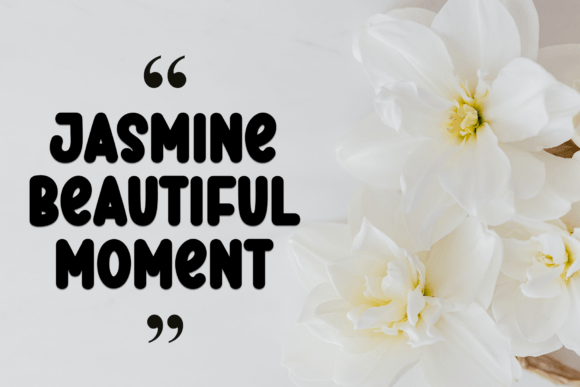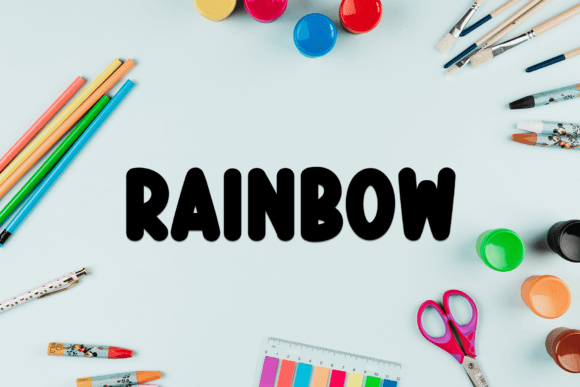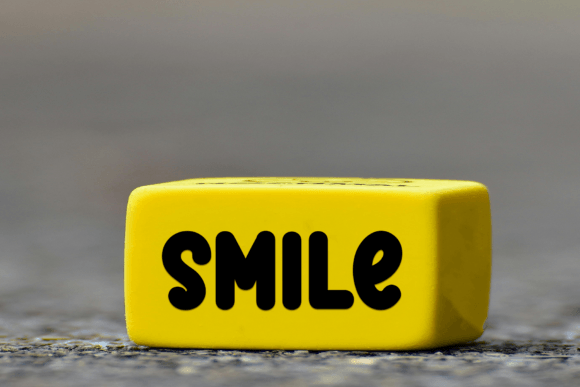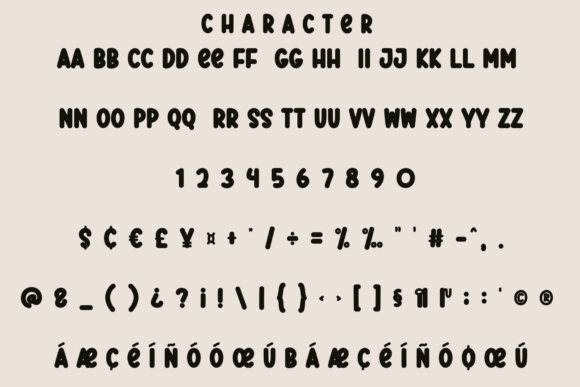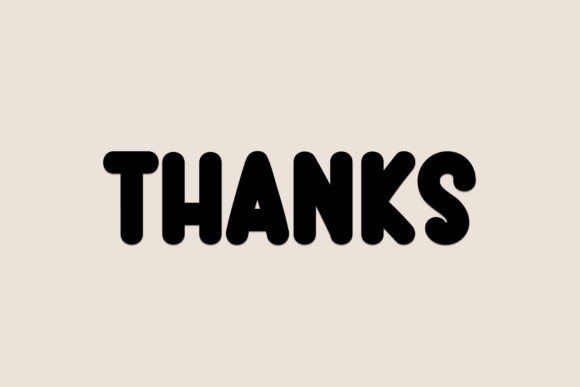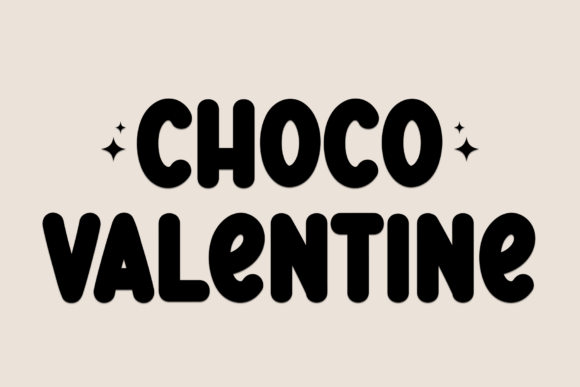
Introducing Choco Valentine Font: The Perfect Blend of Elegance and Casual Charm
Are you on the hunt for a font that exudes luxury, elegance, and a touch of casual flair? Look no further than the Choco Valentine Font. This stunning handwritten font is designed to resemble writing with a marker, giving it a relaxed and sporty feel that’s perfect for a wide range of design applications.
What Makes Choco Valentine Font So Special?
Choco Valentine Font is a unique and versatile typeface that can elevate your designs to new heights. Its marker-drawn aesthetic gives it a friendly, approachable vibe that’s ideal for creating engaging and eye-catching visuals. Whether you’re working on branding, logos, wedding supplies, greeting cards, fashion lookbooks, or marketing promotions, this font is sure to make a lasting impression.
Key Features of Choco Valentine Font
- Handwritten with a marker feel: Choco Valentine Font boasts a distinctive, hand-crafted look that’s reminiscent of writing with a marker. This gives it a warm, personal touch that’s perfect for designs that require a human touch.
- Relaxed and sporty feel: Unlike traditional serif or sans-serif fonts, Choco Valentine Font has a laid-back, casual vibe that’s perfect for brands and designers who want to convey a sense of friendliness and approachability.
- Luxurious and elegant: Despite its casual feel, Choco Valentine Font is undeniably luxurious and elegant. Its smooth, flowing lines and carefully crafted letterforms make it perfect for high-end designs that require a touch of sophistication.
- Versatile: Choco Valentine Font is incredibly versatile, making it suitable for a wide range of design applications, from branding and logos to wedding supplies, greeting cards, and more.
Use Cases for Choco Valentine Font
So, where can you use Choco Valentine Font? The possibilities are endless! Here are some ideas to get you started:
- Branding: Use Choco Valentine Font to create a unique and memorable brand identity that stands out from the crowd.
- Logos: Create a stunning logo that showcases your brand’s personality and style with Choco Valentine Font.
- Wedding supplies: Add a touch of elegance and whimsy to your wedding stationery, invitations, and decorations with Choco Valentine Font.
- Greeting cards: Create beautiful, heartfelt greeting cards for special occasions like Valentine’s Day, birthdays, and holidays.
- Fashion lookbooks: Use Choco Valentine Font to add a touch of luxury and sophistication to your fashion lookbooks and marketing materials.
- Marketing promotions: Create eye-catching promotional materials like flyers, brochures, and posters with Choco Valentine Font.
Tips for Using Choco Valentine Font
To get the most out of Choco Valentine Font, here are some tips to keep in mind:
- Pair it with contrasting fonts: Combine Choco Valentine Font with contrasting fonts to create visual interest and add depth to your designs.
- Experiment with colors: Try out different colors and color combinations to find the perfect match for your design.
- Play with layout and texture: Don’t be afraid to experiment with different layouts and textures to add visual interest to your designs.